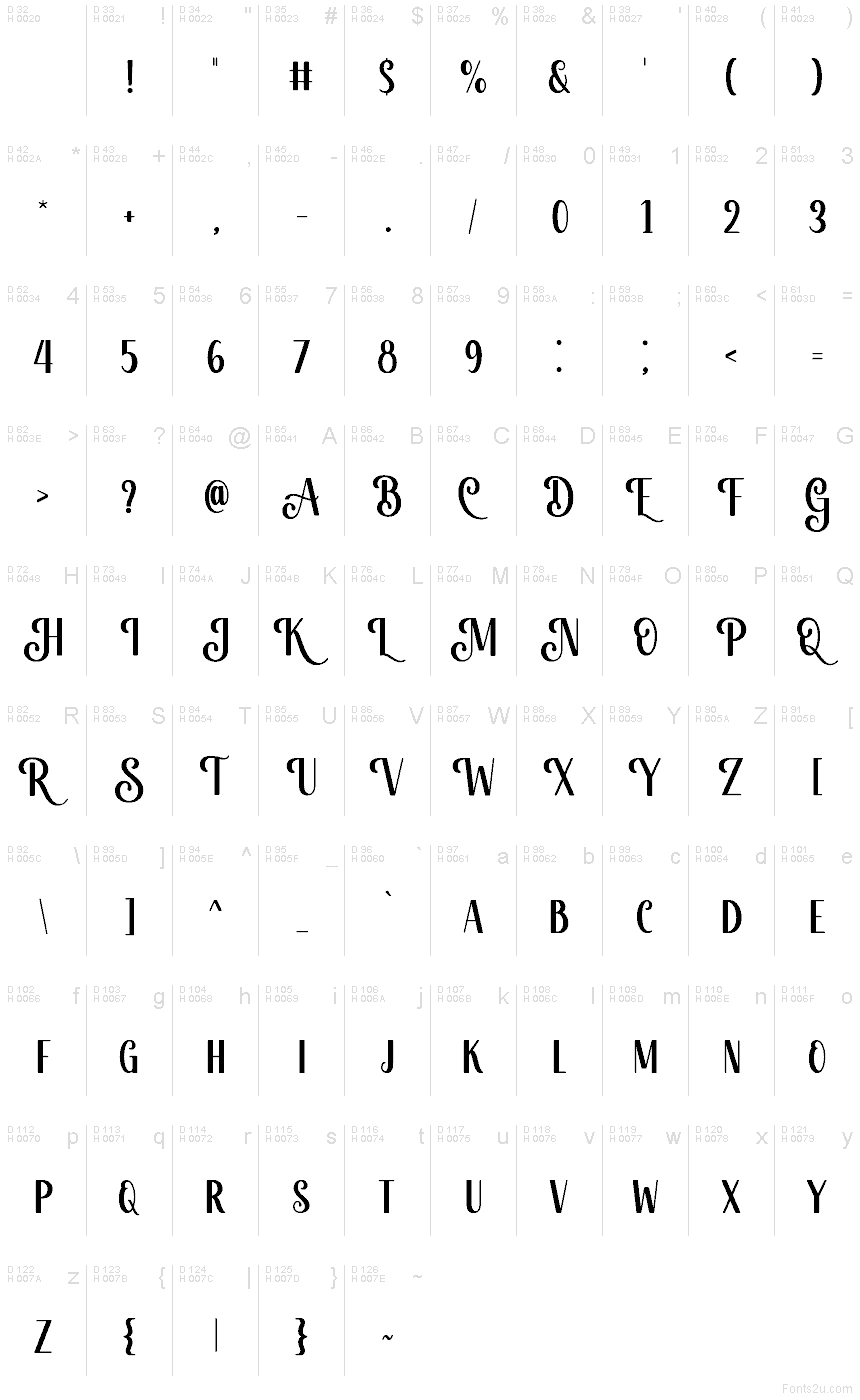
Dancing Christmas
Dancing Christmas font by Keithzo is a free Christmas holiday font that turns every word into a festive flourish. Tall, slim letters sway gently, with curling strokes that feel like ribbon unfurling across a winter window. The rhythm is playful but still tidy, so even longer phrases stay readable while carrying that cozy, storybook charm you want in seasonal work.
Using Dancing Christmas, you can give instant warmth to greeting cards, party invitations, gift tags, Advent calendars, store signage, social media graphics, and Christmas coupons. This free font shines when set large as a headline, then paired with a simple sans serif for body text to keep everything clear and inviting.